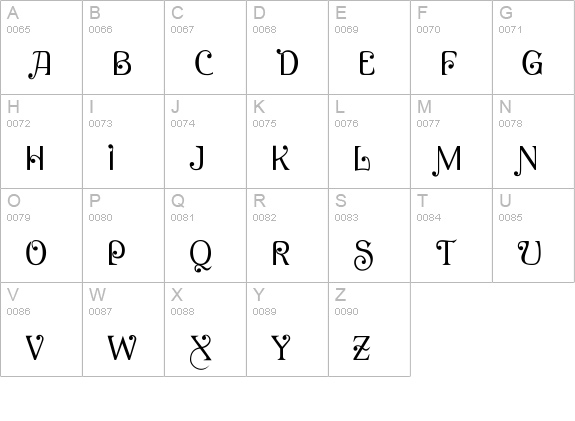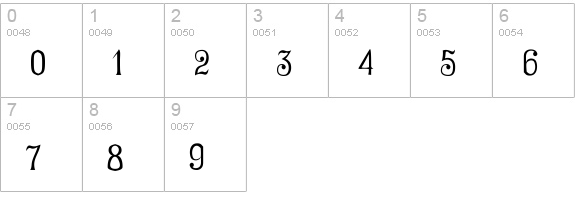
Davenport font is a modern and elegant typeface that combines sophistication with a touch of playfulness. Its sleek lines and stylish curves make it perfect for a wide range of design projects, from branding to packaging to editorial design. The versatility of Davenport font allows it to be used in both digital and print media, adding a touch of sophistication to any project. What makes Davenport font even more appealing is that it is completely free to download at FontsMarket.com. This means that you can access this beautiful font without any cost, making it a valuable addition to your design toolkit. Whether you are a professional designer or a hobbyist looking to elevate your projects, Davenport font is the perfect choice for adding a touch of elegance and style. Download it today and enhance your designs with this stunning typeface.